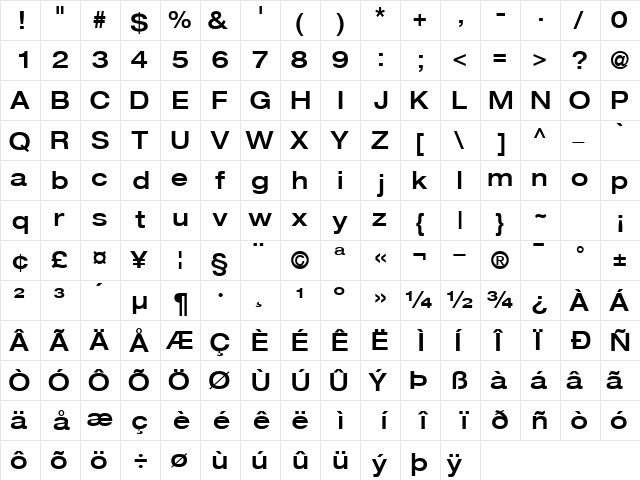
ContextRepriseMediumExpSSK Regular
Design Context for ContextRepriseMediumExpSSK Typeface
ContextRepriseMediumExpSSK offers clean, dependable letterforms without strong stylistic allegiance, making it a practical choice for designers who need flexibility.
Pro Tip: Use ContextRepriseMediumExpSSK in both headline and body roles to test its range before committing to a single application.